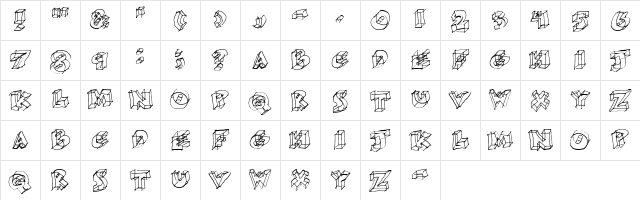
Glass Regular
Design Context for Glass
Glass is a composed and adaptable typeface that performs quietly and consistently across a wide range of design contexts.